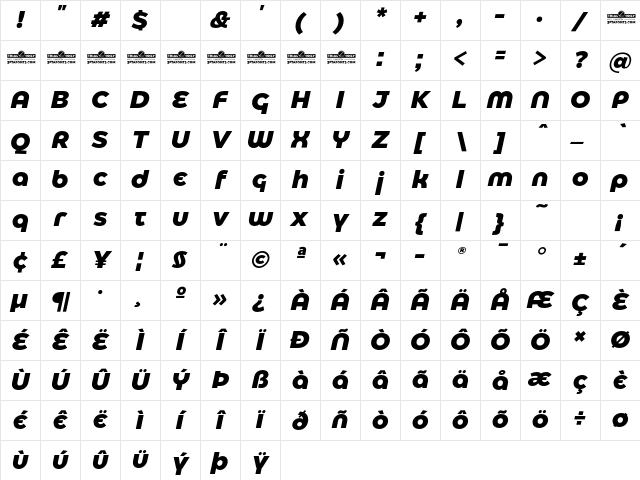
Eastman Alternate Trial Extrabold Italic Free Font
Eastman Alternate Trial Extrabold Italic
Style: Extrabold Italic
Foundry: Zetafonts
Designer: Francesco Canovaro
Design Context for Eastman Alternate Trial
Eastman Alternate Trial is a composed and adaptable typeface that performs quietly and consistently across a wide range of design contexts. The slanted form adds forward momentum and visual energy. Its bold stroke weight gives it real presence on the page.